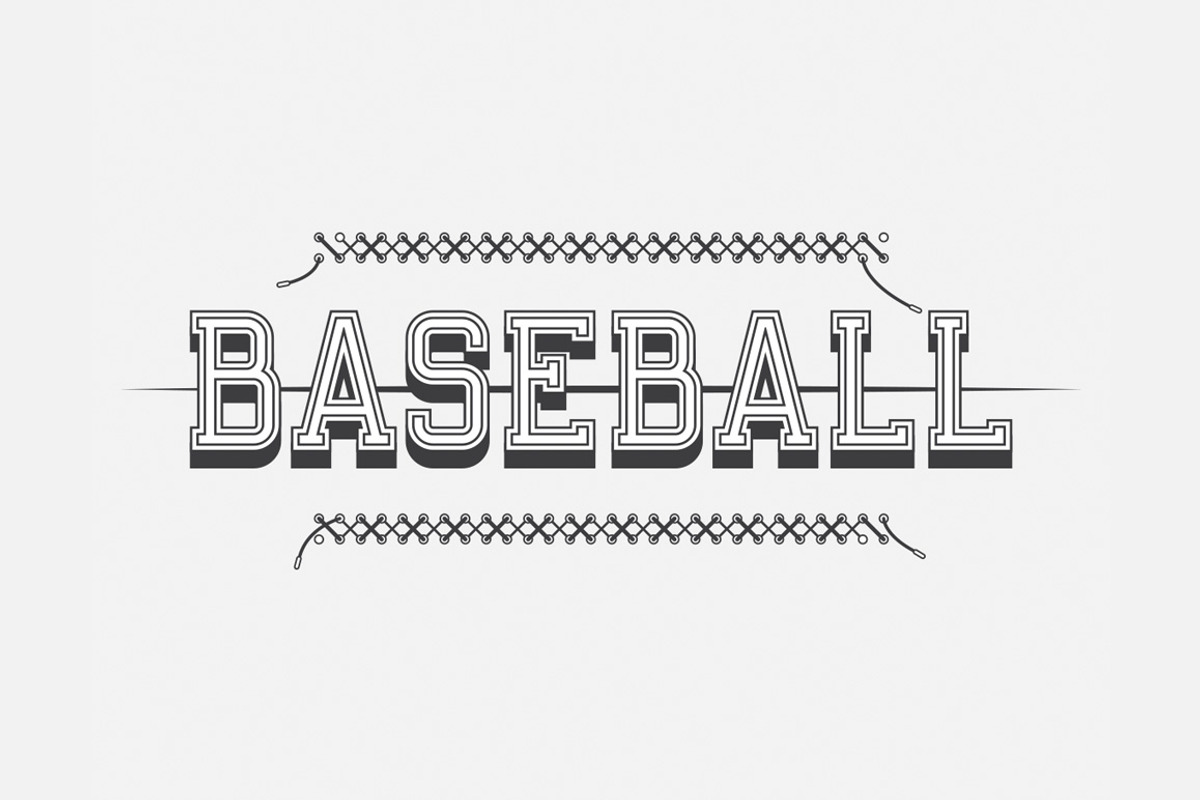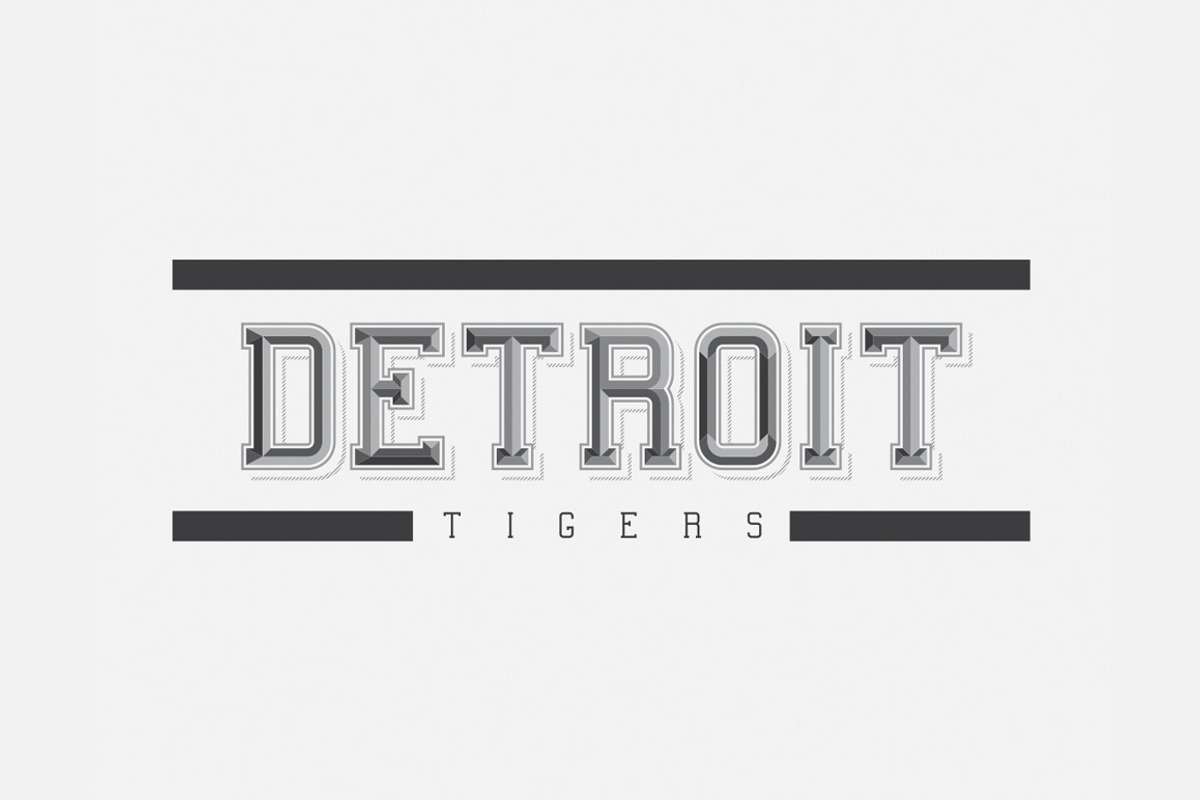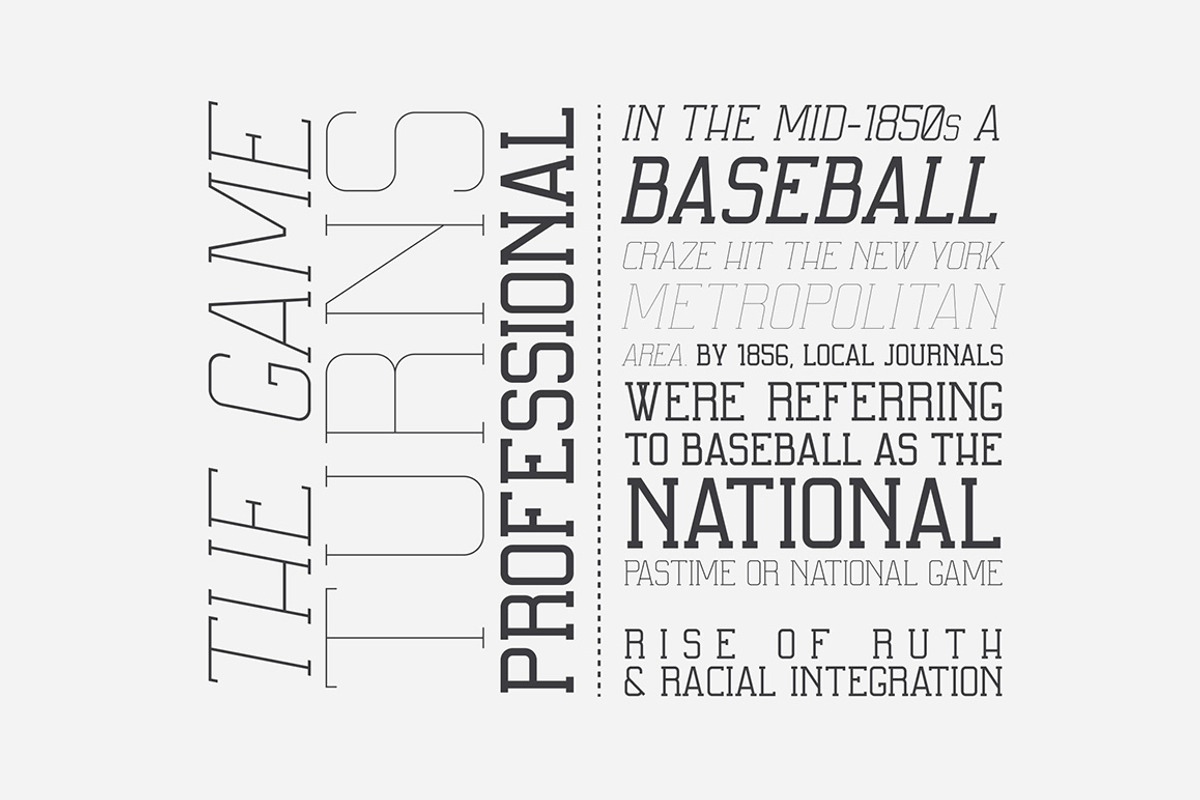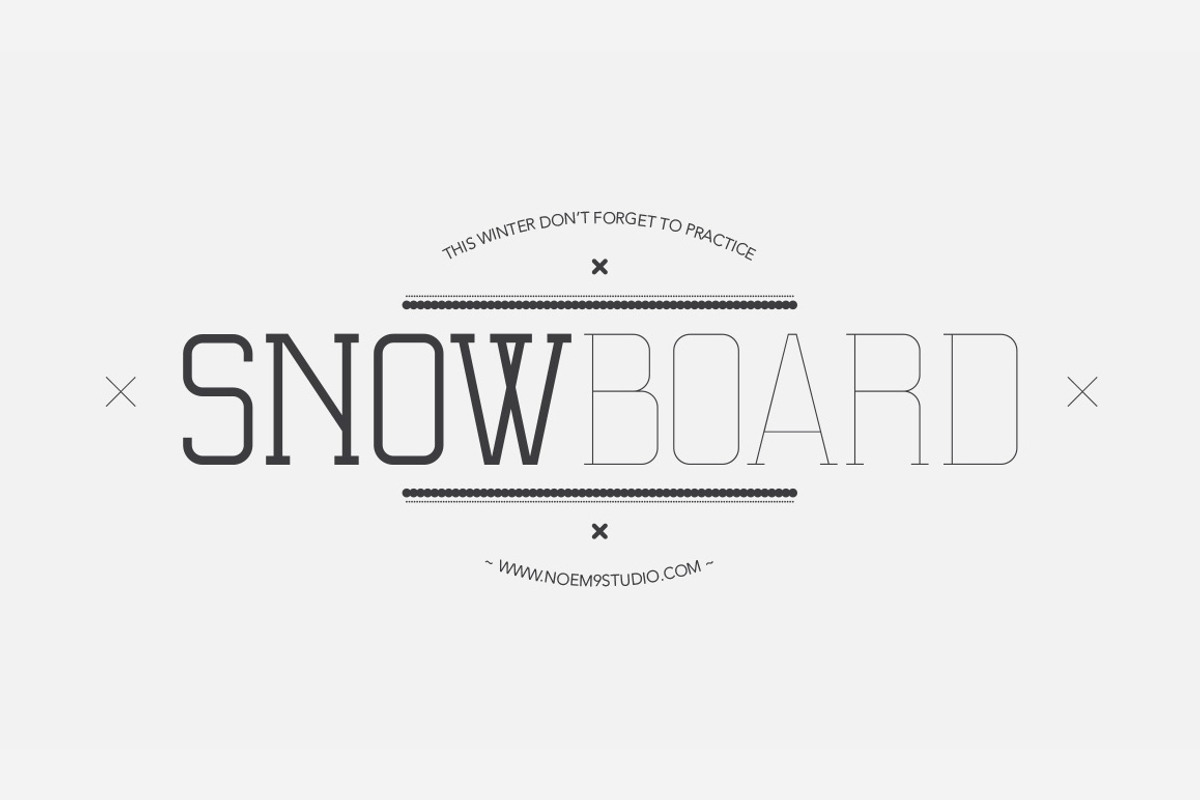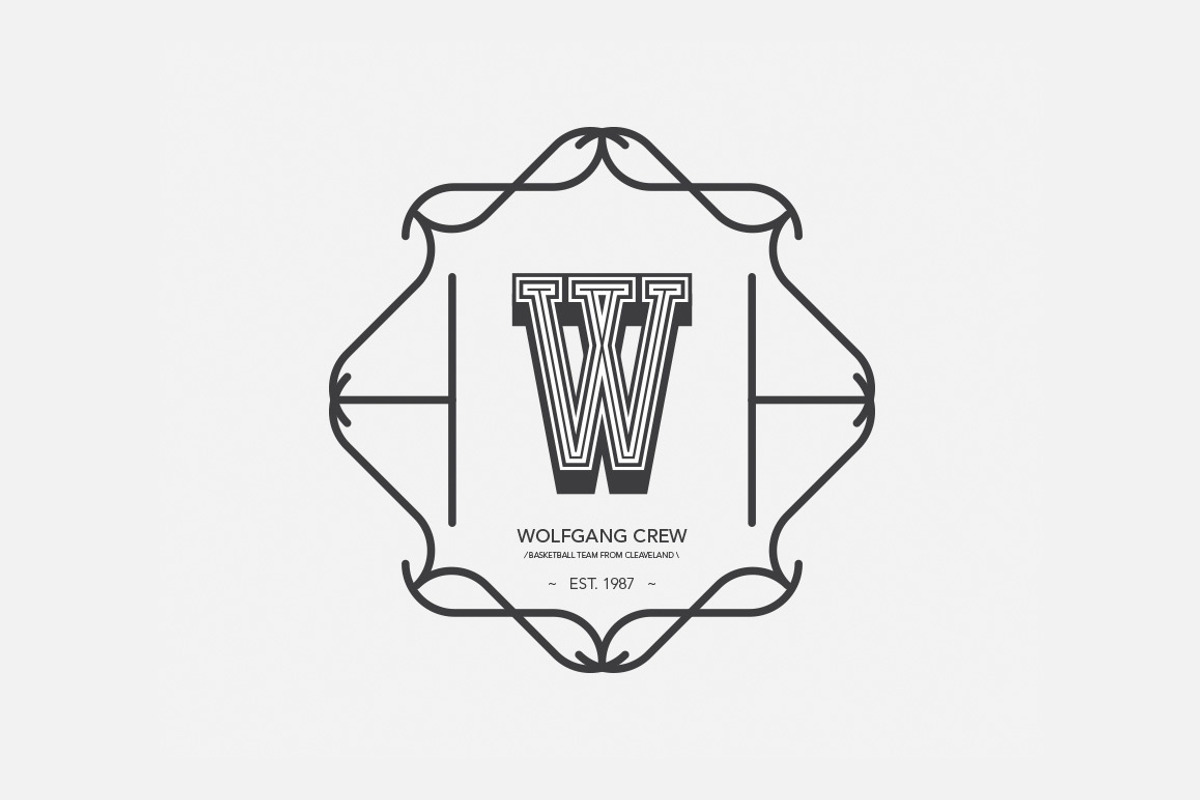
Ballege Typeface
Ballege Typeface by Noem9 Studio is a font selected for branding, posters, packaging, typography.
- Ballege UltraLight
- Ballege UltraLight Oblique
- Ballege Light
- Ballege Light Oblique
- Ballege Regular
- Ballege Oblique
- Ballege Bold
- Ballege Bold Oblique
- Ballege Black
- Ballege Black Oblique
Why Ballege Typeface is worth a look
Ballege Typeface by Noem9 Studio fits naturally into Branding, posters, packaging, typography.